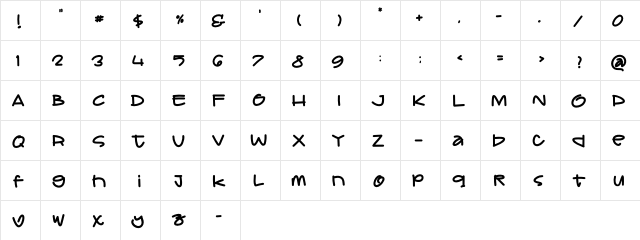
DEAR Daddy PERSONAL USE Regular
Design Context for DEAR Daddy PERSONAL USE Typeface
DEAR Daddy PERSONAL USE takes a measured approach to typography — its balanced proportions and neutral character make it a reliable workhorse for both digital and print work.